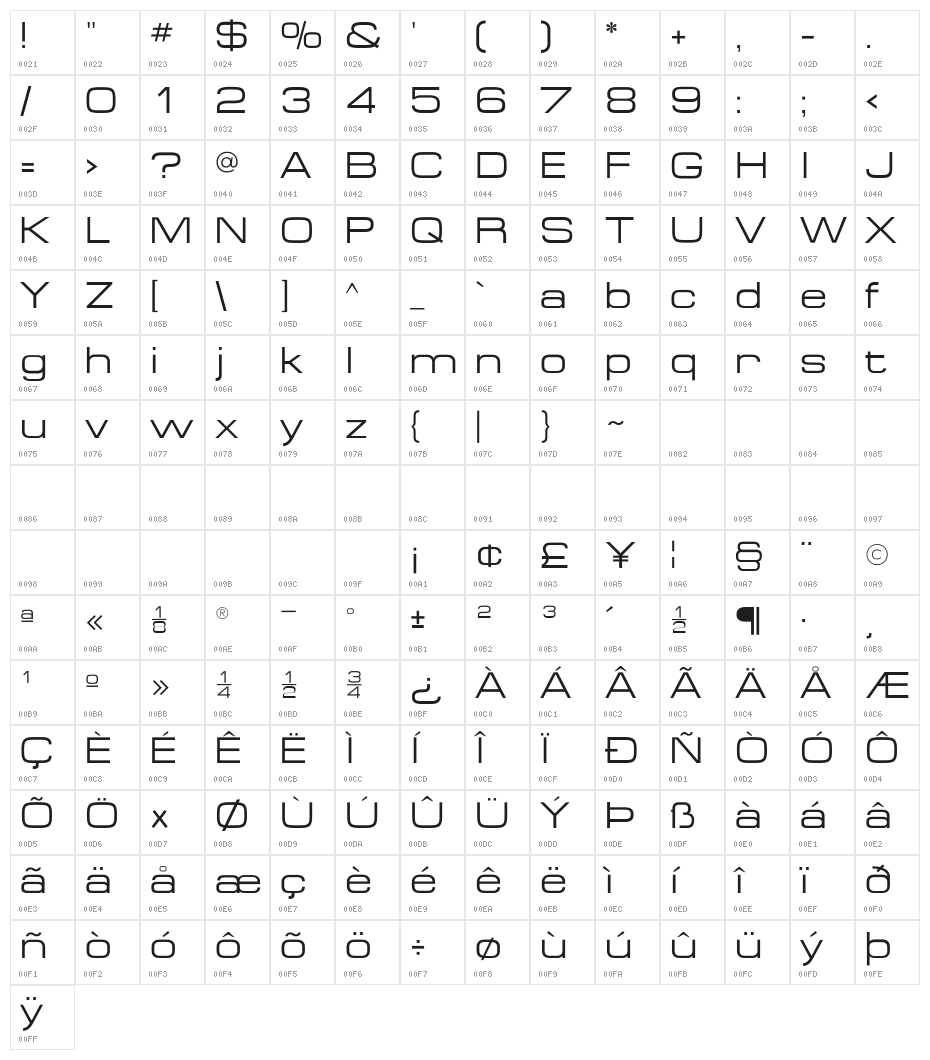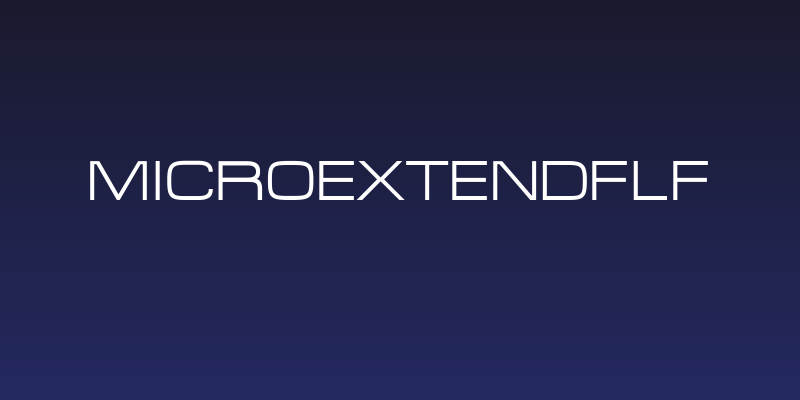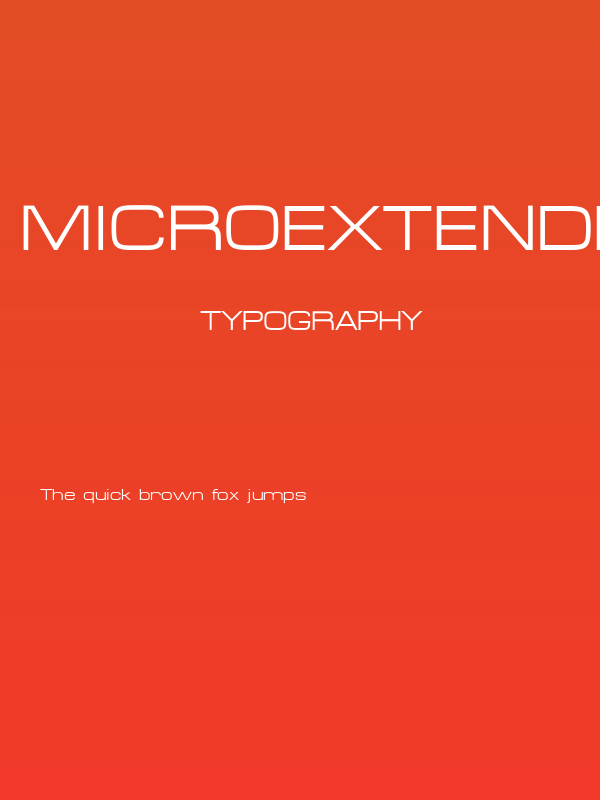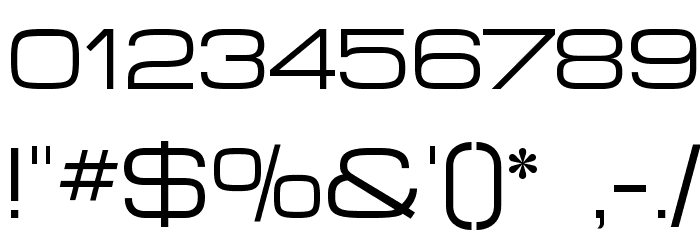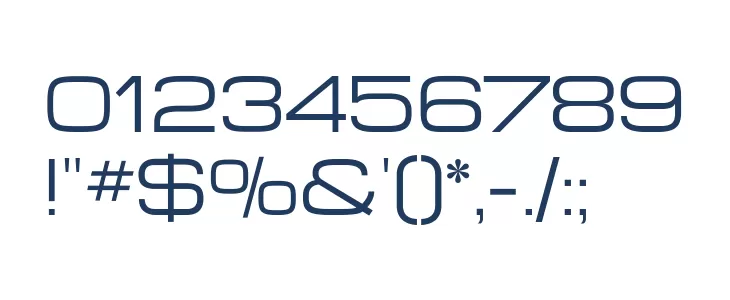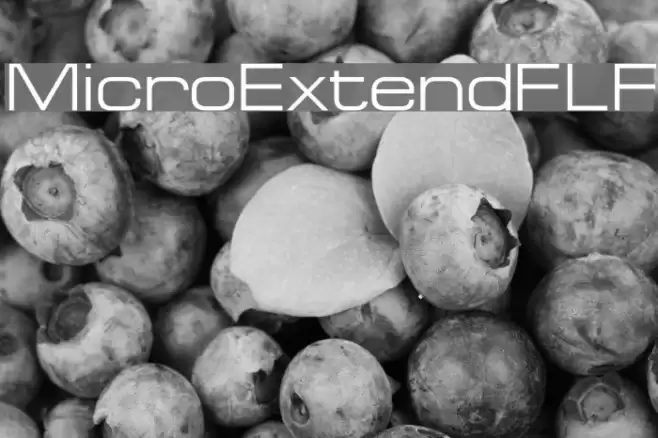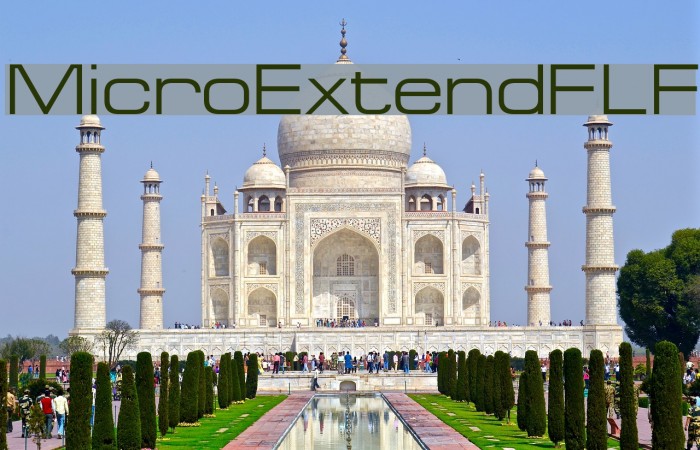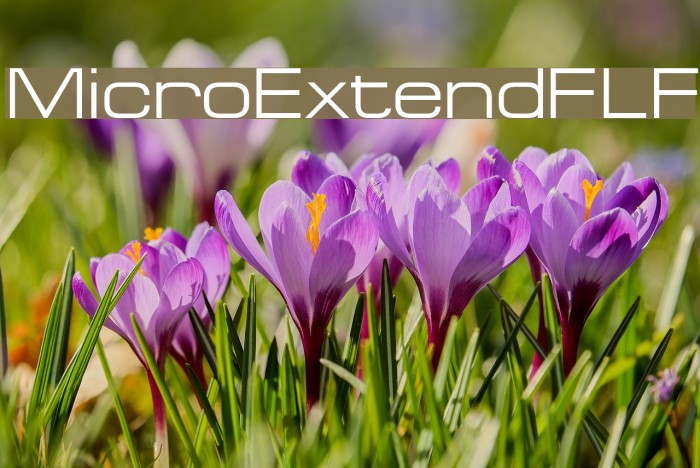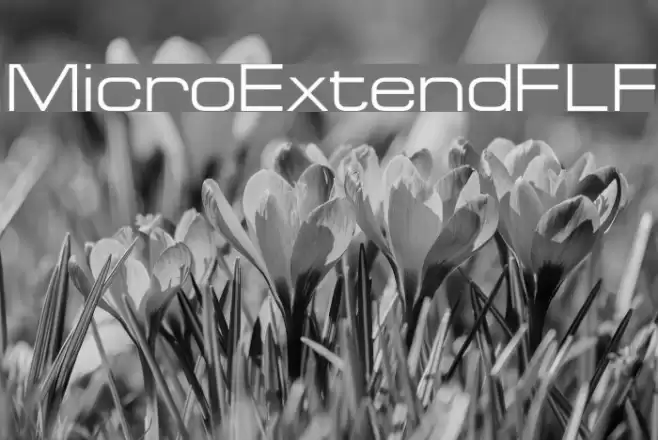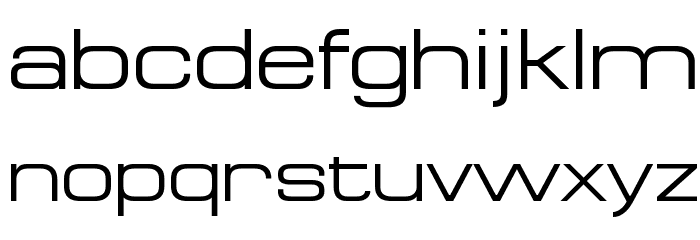
MicroExtendFLF Font
MicroExtendFLF Description
This font features a sleek and modern design with a geometric structure. The characters are clean and minimalistic, offering a futuristic and technical appearance. The uppercase and lowercase letters maintain a consistent height, contributing to a uniform and balanced look. The numerals are distinct and align well with the overall style, ensuring readability. Special characters are designed with the same precision, making them suitable for various applications. The font's simplicity and clarity make it versatile for both digital and print media.
| Use Case | Headlines, Body text, Logos |
| Proposed Projects | Ideal for tech branding, digital interfaces, modern advertising, and editorial design. |